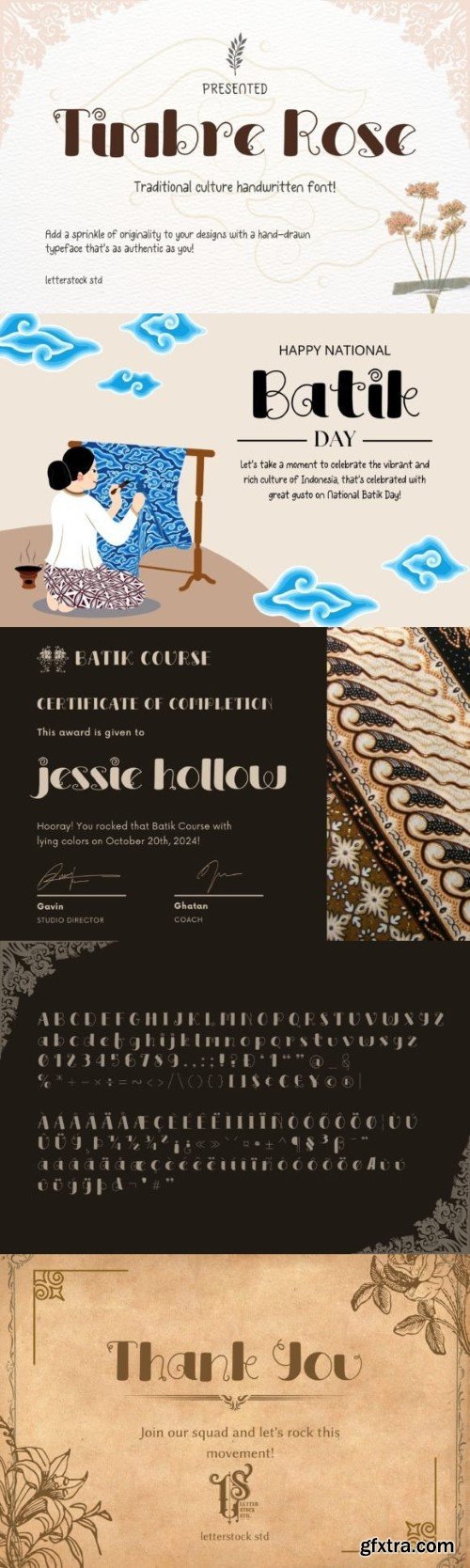
纹理玫瑰字体
Introducing “Timbre Rose” – Your Original Hand-Drawn Font Inspired by Traditional Culture
Embark on a journey of cultural richness with “Timbre Rose,” a font meticulously hand-drawn to reflect the essence of tradition. Ideal for diverse design projects, this font seamlessly blends modern craftsmanship with timeless cultural vibes, making it a versatile choice for posters, branding, and more.